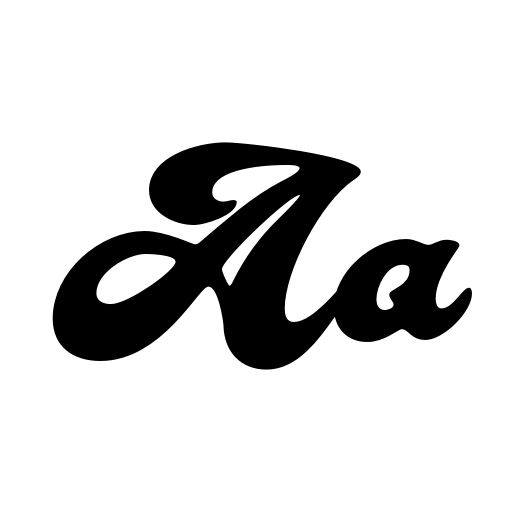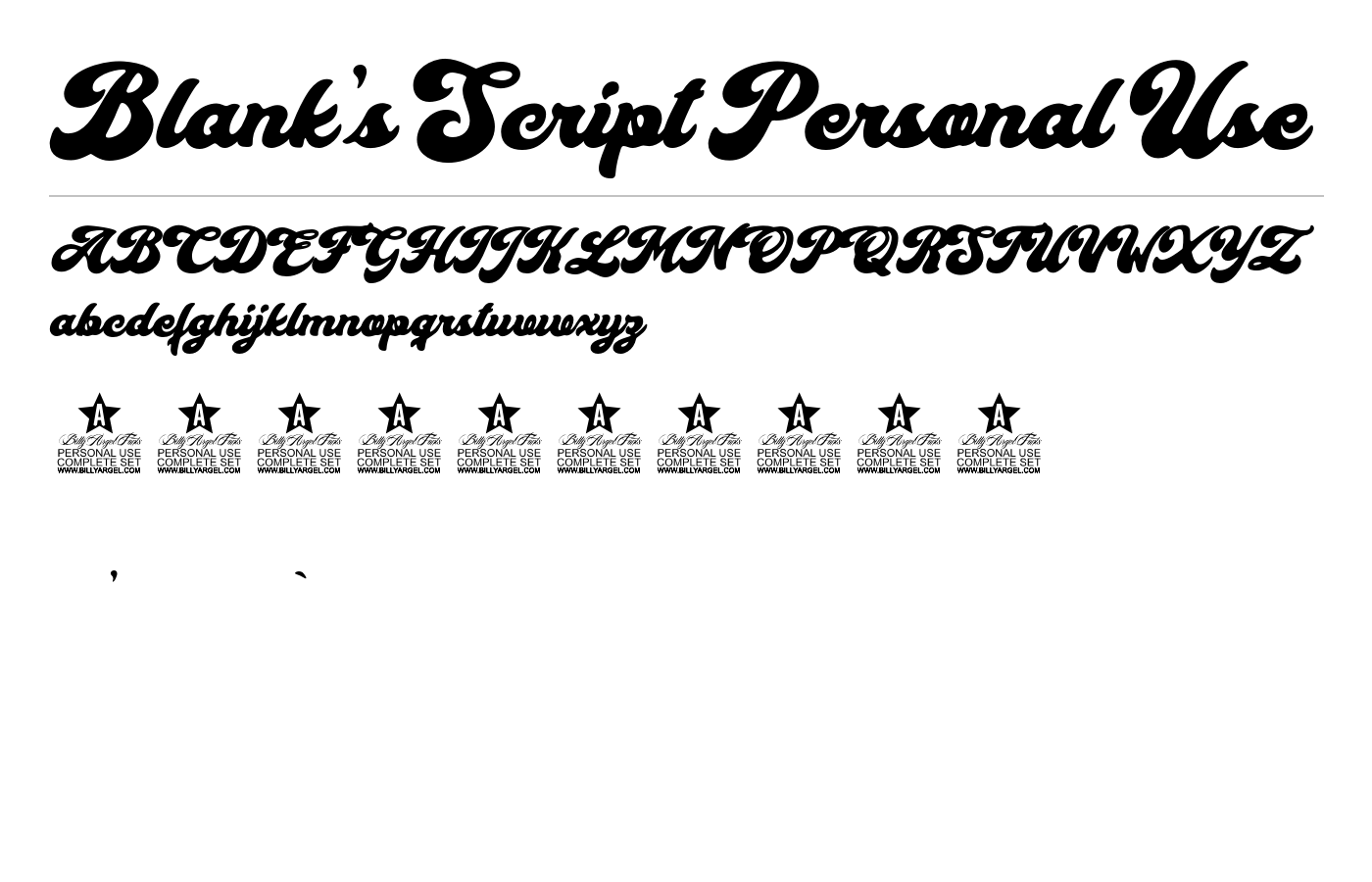
Blank's Script Personal Use is a bold, brush-style script font featuring thick, rounded strokes that create a lively and dynamic handwritten feel. Its high contrast and connected letterforms give it a playful yet strong personality, making it ideal for eye-catching headlines, logos, and creative branding projects that aim to stand out with warmth and energy. This font works well in contexts where an informal, friendly vibe is desired, such as packaging, posters, and casual editorial designs.
Blank's Script Personal Use Font
About Blank's Script Personal Use Font
| Font family | Blank's Script Personal Use Font |
| Font subfamily | Bold, Italic |